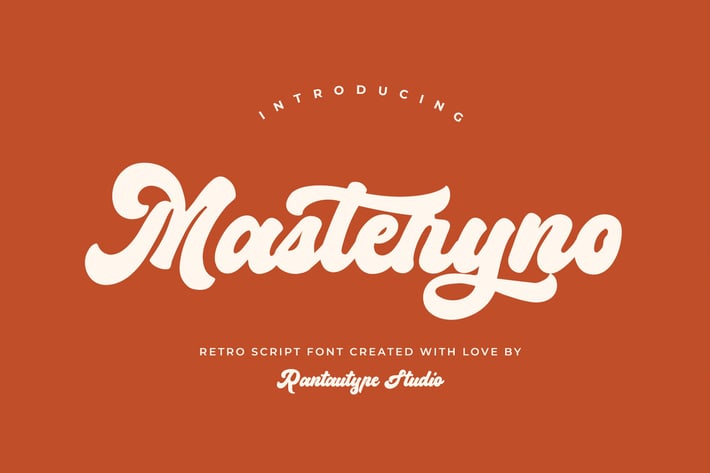
Masteryno Retro Script font
Masteryno is retro script font with with grovy vibes of midcentury era. Masteryno bring smooth shape and flowing curve, it's ideal for design project to create nostalgic touch.
Masteryno is perfectly choice for any creative endeavor, chic, lifestyle design such as logos, title, watermark on photography, cover, branding, display and magazine, wedding event, corporate brand, quotes, album cover, business card, business project and many other design project with retro or nostalgic taste.
Ligature and alternate